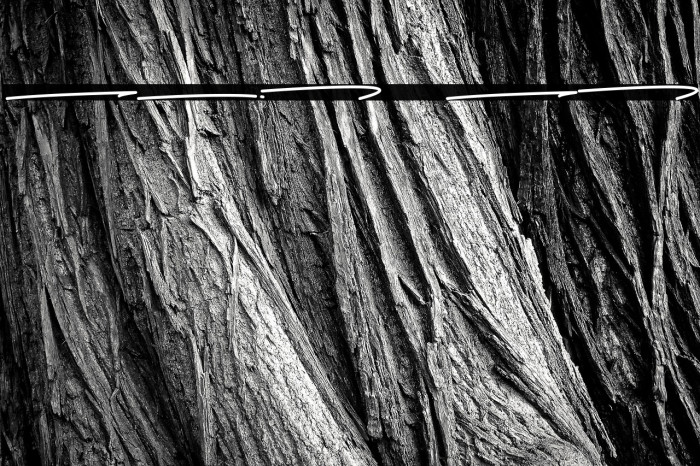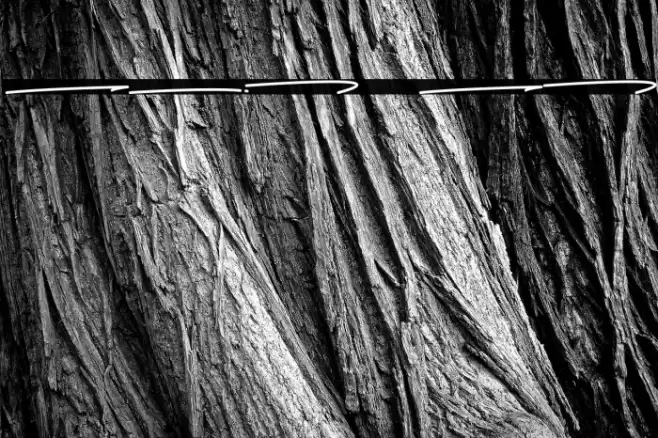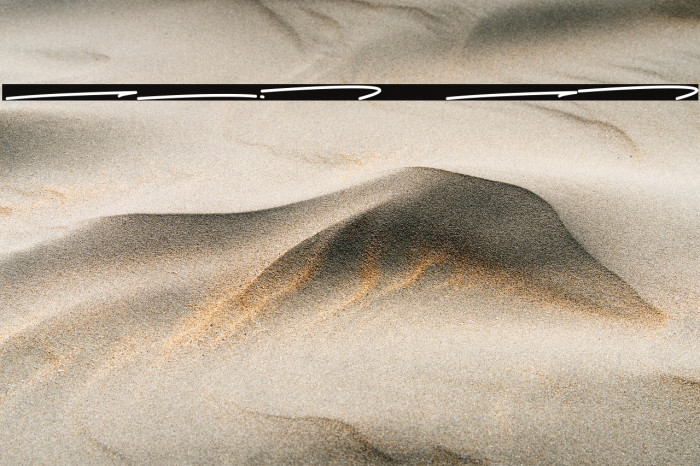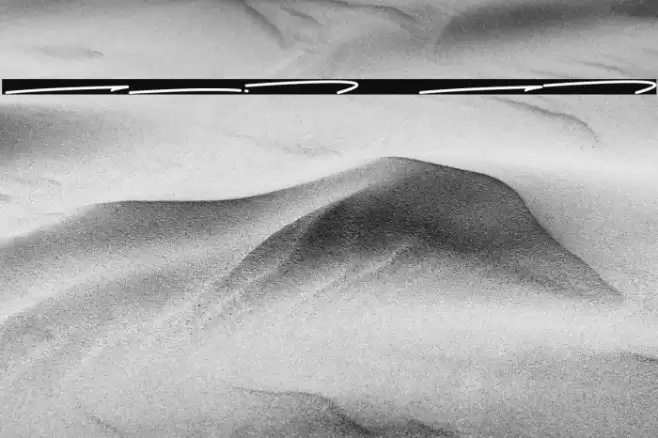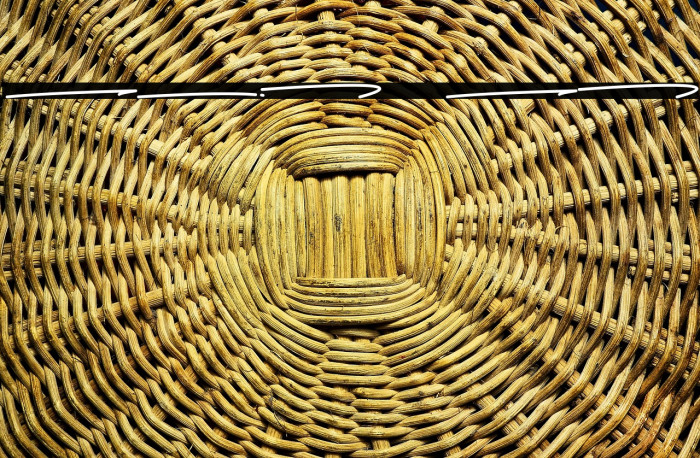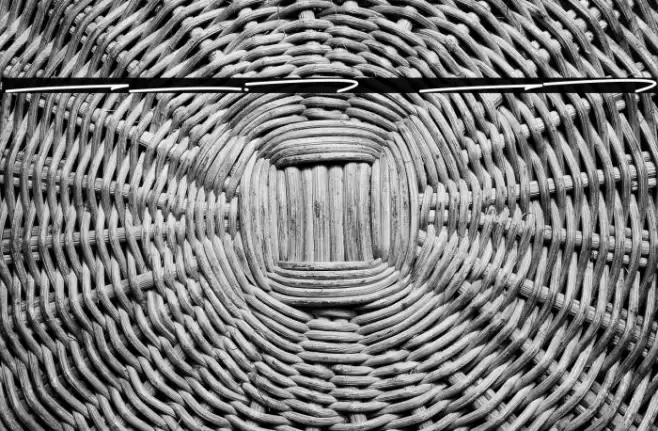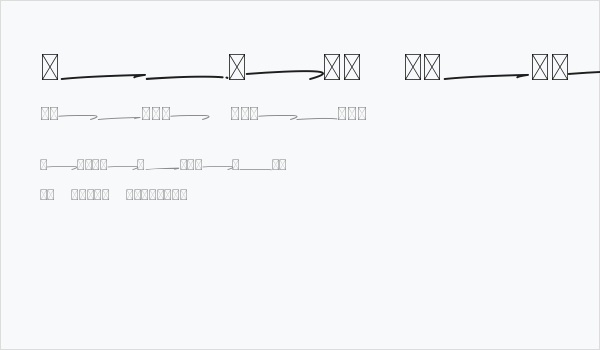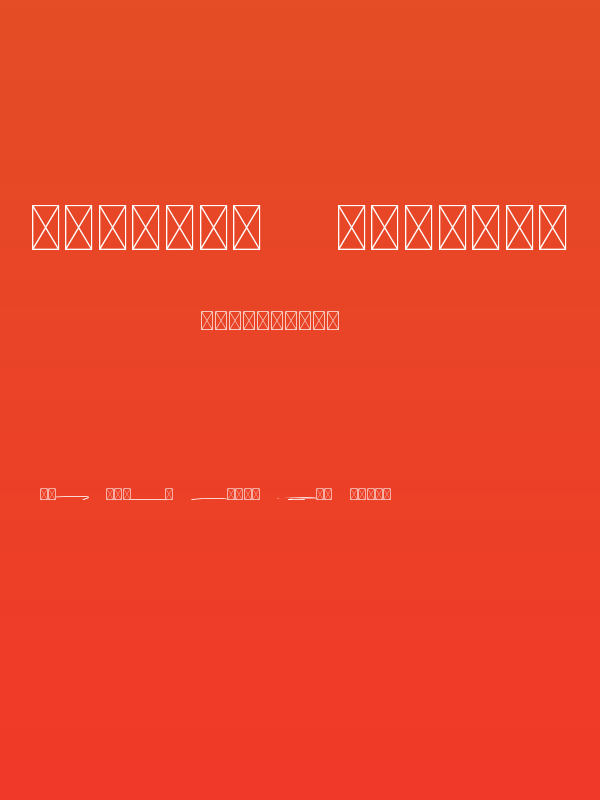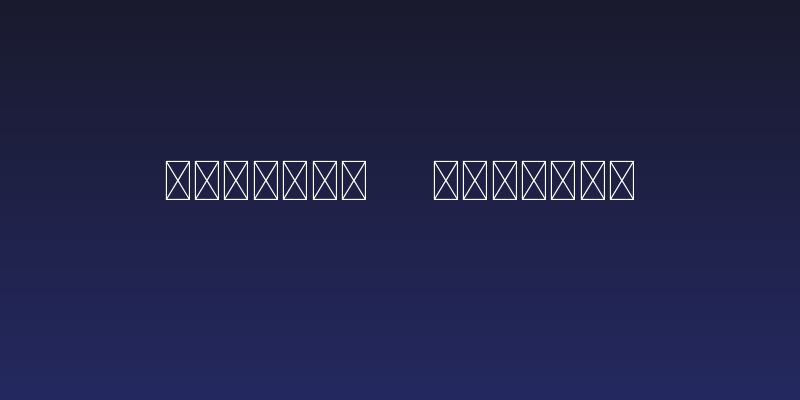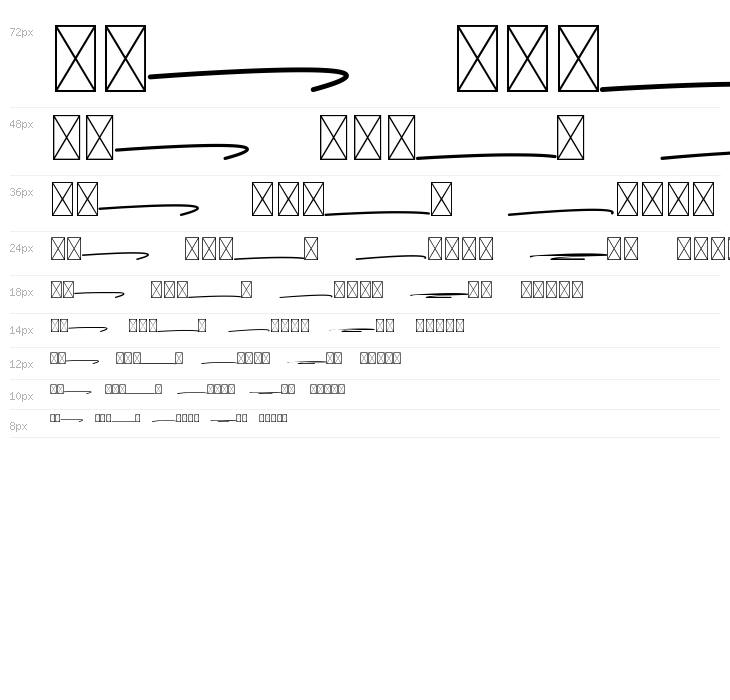
Sadwell Swashes Font
Sadwell Swashes Description
A decorative script font with dramatic, sweeping swashes and fluid, hand-drawn strokes. The letterforms are highly stylized, featuring extended terminals and flourishes that create an elegant, ornamental appearance.
| Overall Style | Decorative, Elegant, Ornamental |
| Proposed Projects | Wedding invitations, branding, luxury packaging, event posters, greeting cards. |